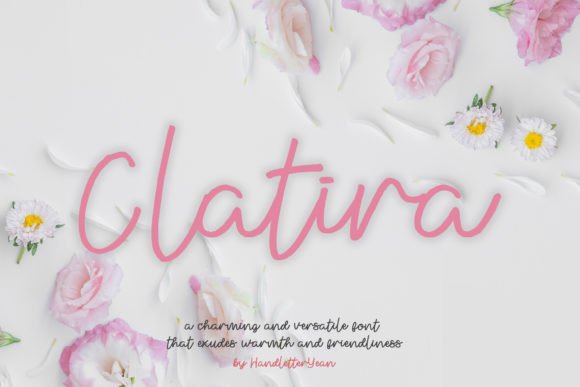
Discover the Charm of Clatira Font: A Versatile and Friendly Typeface
When it comes to selecting the perfect font for your design project, the options can be overwhelming. However, if you’re looking for a typeface that exudes warmth, friendliness, and a touch of authenticity, look no further than Clatira Font. This charming and versatile font is designed to make a memorable impression, making it an ideal choice for a wide range of design applications.
What is Clatira Font?
Clatira is a monoline font, meaning each stroke maintains a consistent thickness throughout, giving it a smooth and uniform appearance. Crafted with care and precision, Clatira’s clean lines and effortless charm make it a standout in the world of typography. The font’s design is characterized by its simplicity, elegance, and sophistication, making it perfect for use in various design projects, from branding and advertising to packaging and digital media.
The Characteristics of Clatira Font
So, what makes Clatira Font so special? Here are some of its key characteristics:
- Monoline Design: Clatira’s monoline design gives it a smooth and uniform appearance, making it perfect for use in a variety of design applications.
- Clean Lines: The font’s clean lines and simple design make it easy to read and understand, even at small sizes.
- Effortless Charm: Clatira’s elegant and sophisticated design gives it a charming and friendly feel, making it perfect for use in branding and advertising.
- Warmth and Authenticity: The font’s warm and authentic feel makes it perfect for use in projects where a personal touch is desired.
The Benefits of Using Clatira Font
So, why should you choose Clatira Font for your design project? Here are some of the benefits of using this versatile and friendly typeface:
- Versatility: Clatira Font is a versatile typeface that can be used in a wide range of design applications, from branding and advertising to packaging and digital media.
- Readability: The font’s clean lines and simple design make it easy to read and understand, even at small sizes.
- Emotional Connection: Clatira’s warm and authentic feel makes it perfect for use in projects where a personal touch is desired, helping to create an emotional connection with your audience.
- Memorable Impression: The font’s charming and friendly design makes it sure to leave a memorable impression on your audience.
How to Use Clatira Font in Your Design Project
Using Clatira Font in your design project is easy. Here are some tips to get you started:
- Branding and Advertising: Use Clatira Font in your branding and advertising materials, such as logos, brochures, and flyers, to create a warm and authentic feel.
- Packaging Design: Use Clatira Font in your packaging design to add a touch of elegance and sophistication.
- Digital Media: Use Clatira Font in your digital media, such as website headers, social media graphics, and email newsletters, to create a memorable impression.
In conclusion, Clatira Font is a charming and versatile typeface that exudes warmth and friendliness. With its clean lines, effortless charm, and monoline design, Clatira is perfect for use in a wide range of design applications. Whether you’re looking to create a warm and authentic feel in your branding and advertising, add a touch of elegance and sophistication to your packaging design, or make a memorable impression in your digital media, Clatira Font is the perfect choice.
- What is Clatira Font? Clatira Font is a monoline font that exudes warmth and friendliness, making it perfect for use in a wide range of design applications.
- What are the key characteristics of Clatira Font? Clatira Font is characterized by its monoline design, clean lines, effortless charm, and warm and authentic feel.
- How can I use Clatira Font in my design project? Clatira Font can be used in a variety of design applications, including branding and advertising, packaging design, and digital media.